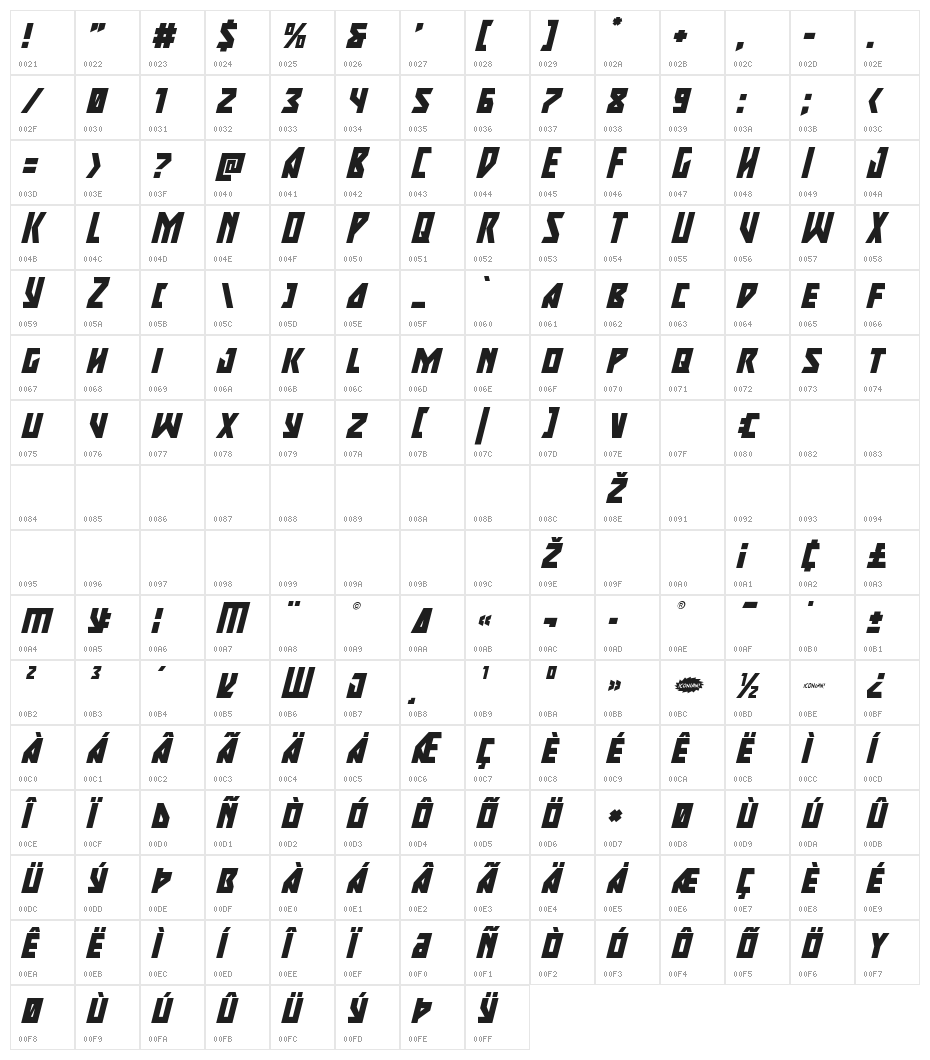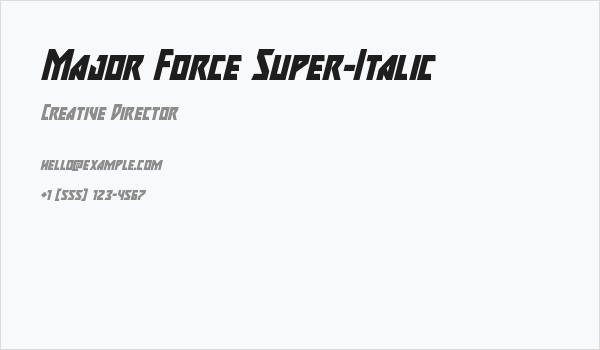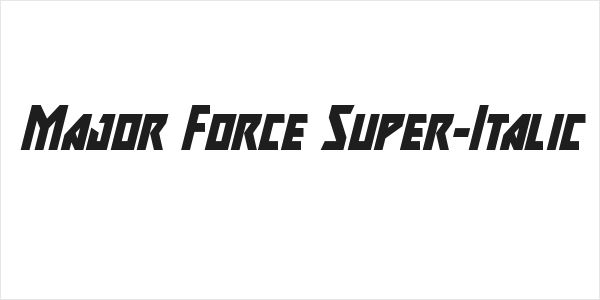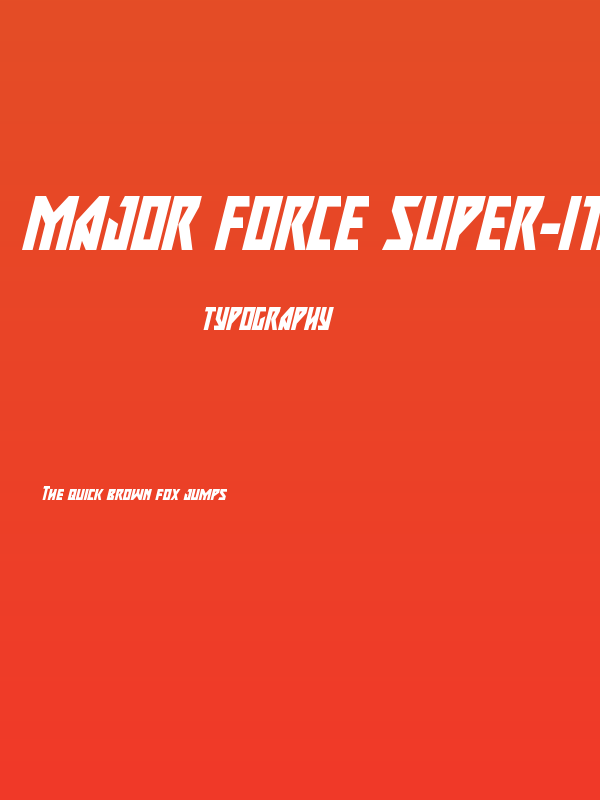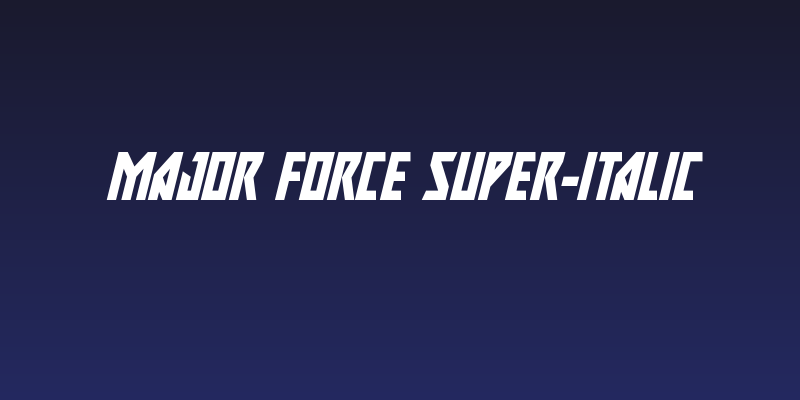
Major Force Super-Italic Font
Major Force Super-Italic Description
This font features a bold, angular design with a strong italic slant, giving it a dynamic and energetic appearance. The characters are sharply cut with a futuristic edge, making it ideal for projects that require a modern and impactful look. The uppercase and lowercase letters maintain a consistent style, with exaggerated angles and a sense of motion. The numerals and special characters follow the same design principles, ensuring uniformity across all text elements. The font's unique style makes it suitable for attention-grabbing headlines and branding materials.
MAJOR-FORCE-SUPER-ITALIC UPPERCASE
MAJOR-FORCE-SUPER-ITALIC LOWERCASE
MAJOR-FORCE-SUPER-ITALIC OTHER CHARS
| Proposed Projects | Ideal for sports branding, video game titles, action movie posters, and dynamic advertising campaigns. |